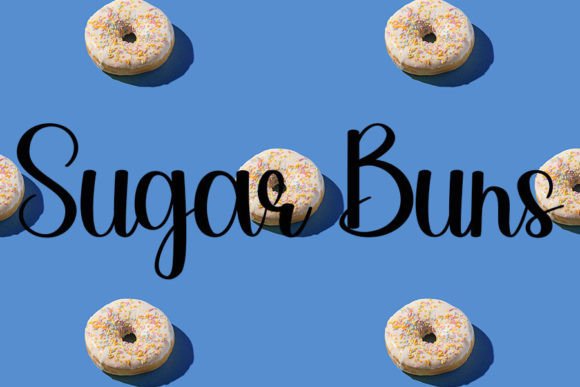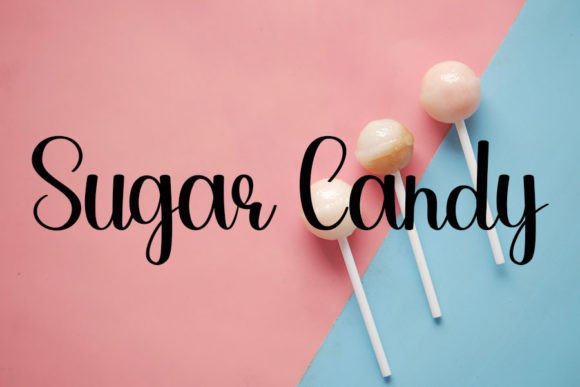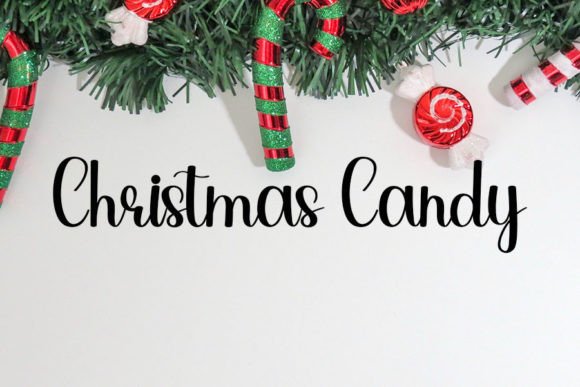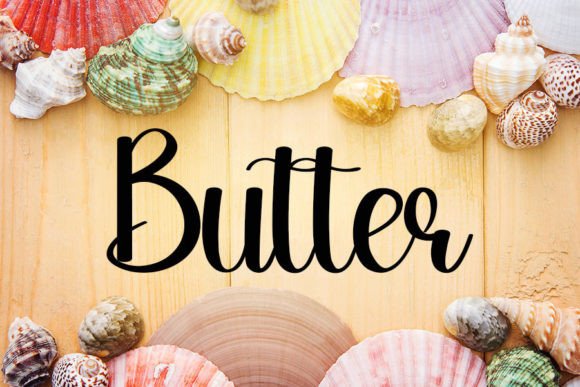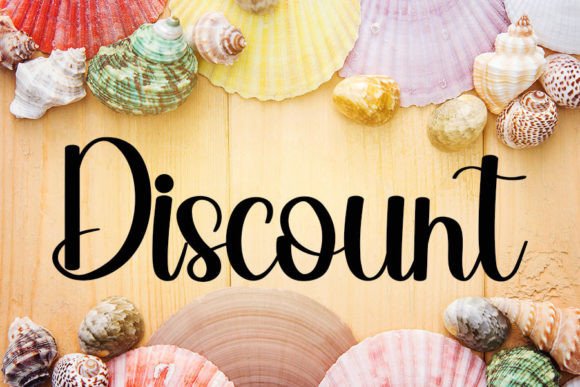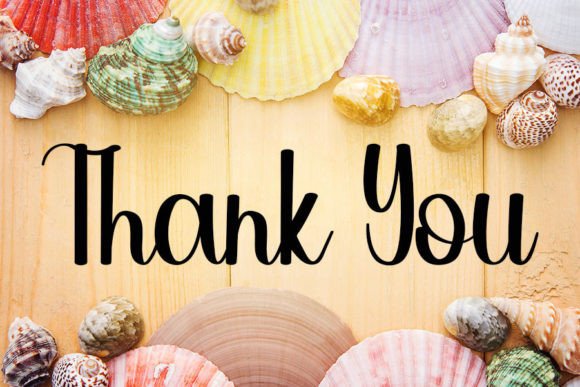
Sugar Font
Add elegance and charm to your creative projects with the Sugar font. This neat and beautiful handwritten script is designed with a refined touch, making it perfect for your favorite design ideas. Fall in love with its distinct and timeless style, which helps your work stand out.
The Sugar font features smooth, well-balanced strokes that make your designs both elegant and readable. Its clean lines add a professional yet artistic feel. This makes it an excellent choice for logos, branding, social media posts, and many other creative projects.
Whether you are designing invitations, quotes, posters, or product packaging, the Sugar font brings a sophisticated flair. Its timeless appeal ensures your work remains stylish and captivating for years to come.
Despite its elegant look, the Sugar font maintains great readability at different sizes. Whether used for bold headlines or subtle accents, it enhances your creative work with grace and style.
Using this font will give your projects a unique and memorable personality. If you want your designs to feel both polished and artistic, the Sugar font is the ideal choice.
In summary, the Sugar font suits a wide range of creative uses. From branding and social media to invitations and packaging, it brings elegance and clarity. Download it today and create spectacular designs with this refined handwritten script.